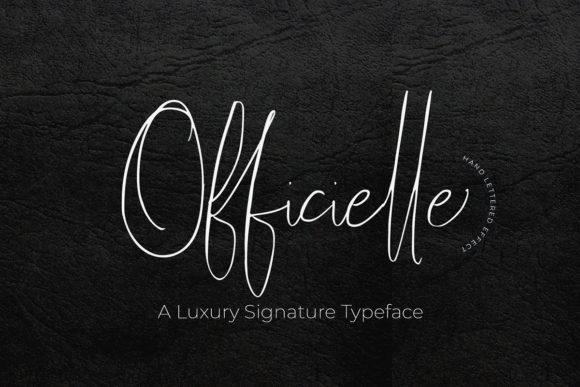
Dive into the captivating world of Officielle Script Font, an enchanting handwritten font that weaves a spell of elegance and charm into your designs. Immerse yourself in the beauty of its swirling strokes and graceful curves, crafted with the utmost care to mirror the flow of a fluid, expressive hand.
With Officielle Script Font, you'll embark on a creative journey where emotions dance and stories unfold. Whether you're a graphic designer seeking to add a touch of sophistication to your projects, a brand designer yearning for a distinctive identity, or a social media enthusiast looking to make a statement, this font is your magic wand.
Officielle Script Font possesses an innate ability to transform ordinary words into captivating narratives. Its enchanting allure draws the eye, inviting readers to delve deeper into the depths of your designs. Picture wedding invitations adorned with Officielle Script's delicate strokes, evoking a sense of timeless romance and elegance.
Step into the world of branding and watch Officielle Script Font work its magic. It's the perfect choice for crafting logos that exude personality and leave a lasting impression. Imagine a cosmetics brand logo adorned with this font, hinting at the allure and beauty within. Or envision a restaurant's branding, where Officielle Script Font dances across menus and signage, promising a delightful culinary experience.
Social media platforms come alive with the presence of Officielle Script Font. Its captivating nature is a magnet for engagement, drawing followers into the captivating world you've created. Instagram posts, Facebook ads, and Pinterest boards adorned with this font radiate charm and sophistication, inviting users to connect and share.
With Officielle Script Font, you'll discover a font that dances across the digital landscape, captivating audiences and leaving an indelible mark on their minds. It's a font that speaks to the heart, evoking emotions, and creating a lasting connection between you and your audience.
So, let Officielle Script Font ignite your creativity and embark on a journey of artistic expression. Whether you're a seasoned designer or just starting, this font is your passport to a world of captivating designs that resonate with your audience on a profound level.